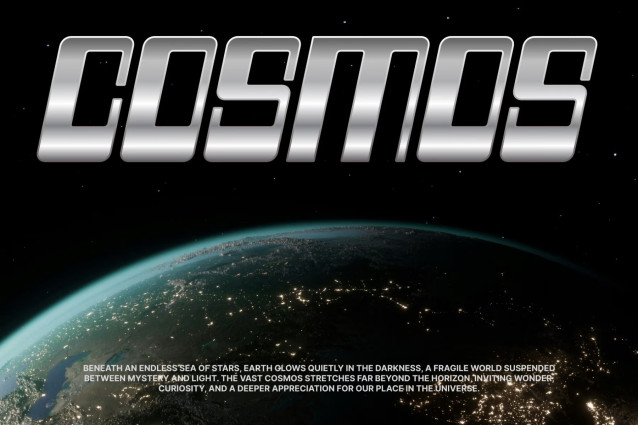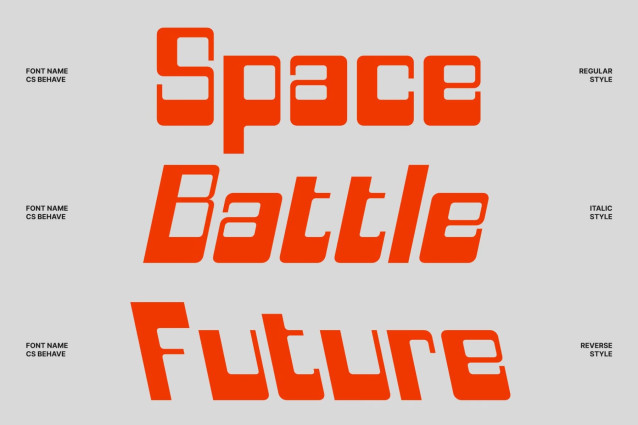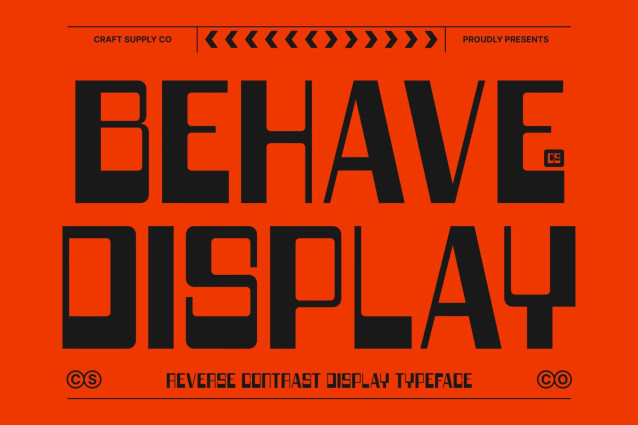
CS Behave – Reverse Contrast Font
CS Behave – Condensed Reverse Contrast Display Sans Serif: Where Geometric Precision Meets Contemporary Retro Style
Tall Geometric Forms with Unconventional Contrast
This is a condensed reverse contrast display sans serif font featuring tall geometric letterforms, soft rounded corners, and distinctive reverse contrast construction. With thicker horizontal strokes and slimmer verticals, it reinterprets a classic typographic style through a contemporary lens. The result is a display typeface that feels bold, elegant, and instantly recognizable.
Modern Geometry with Refined Character
This font maximizes visual impact while maintaining excellent readability. Its rounded corners soften the structured geometry, creating a balanced aesthetic that is both approachable and sophisticated. This harmonious combination of bold forms and refined details gives the font a versatile personality suitable for a wide range of creative applications.